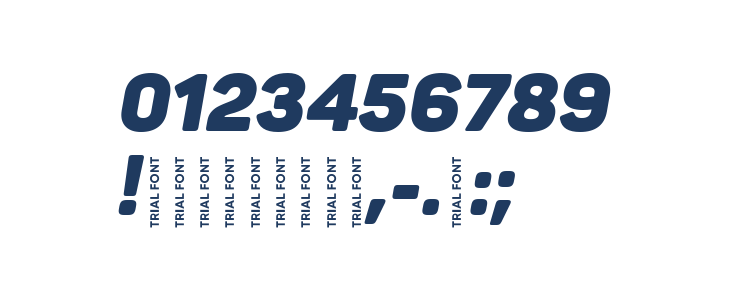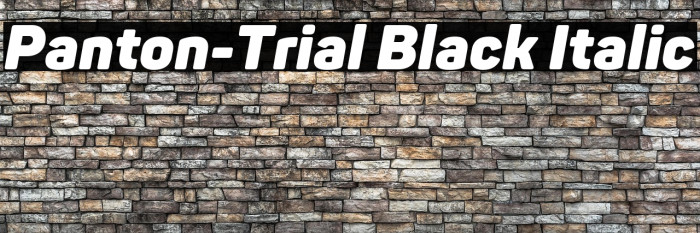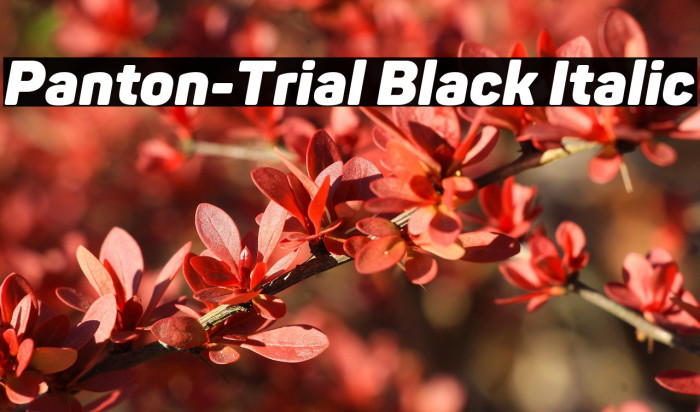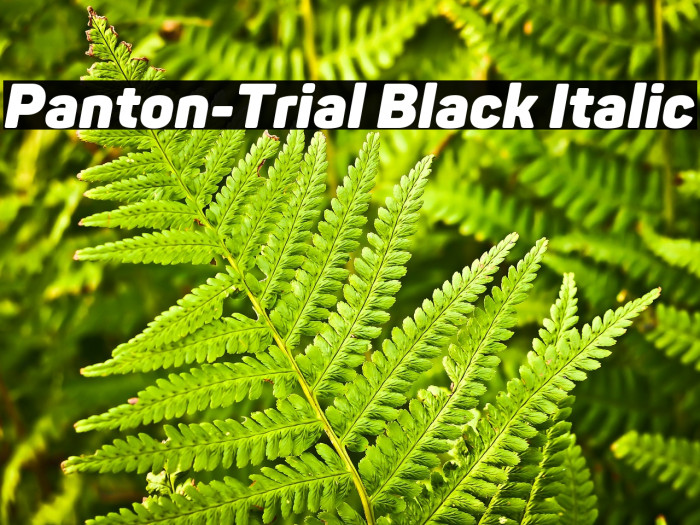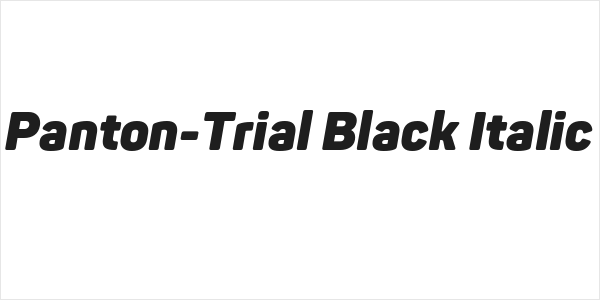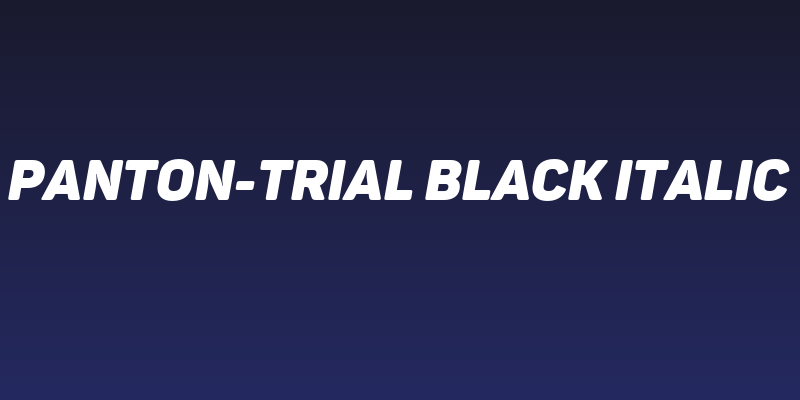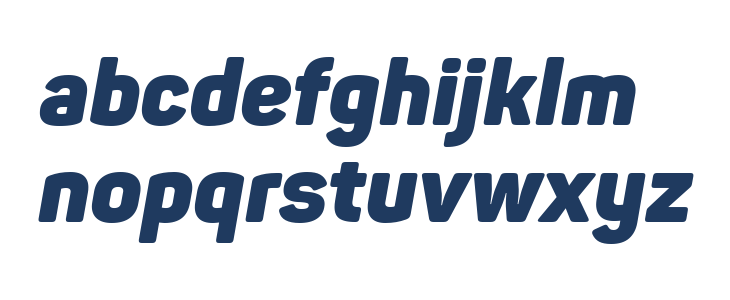
Panton-Trial Black Italic Font
Panton-Trial Black Italic Description
This font exhibits a bold and dynamic appearance with a strong emphasis on modernity. The characters are slightly slanted, giving it an italicized look that adds a sense of motion and energy. The strokes are thick and consistent, providing a robust and confident feel. The overall design is clean and sans-serif, making it versatile for various applications. The numbers and special characters maintain the same boldness and style, ensuring uniformity across all elements.